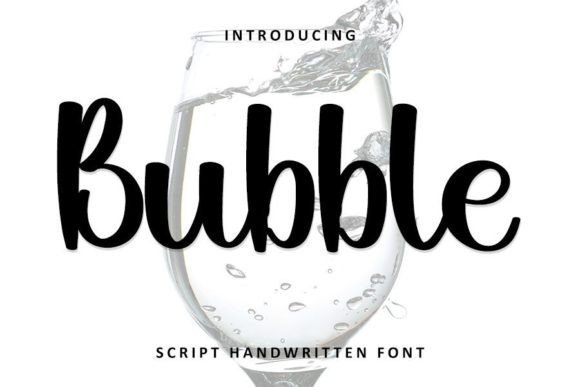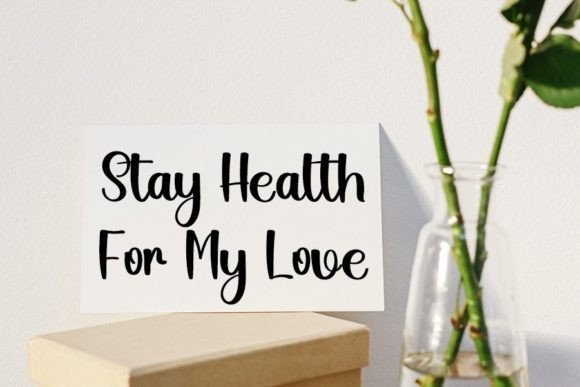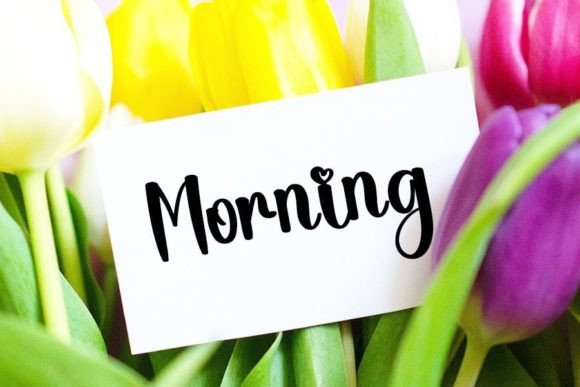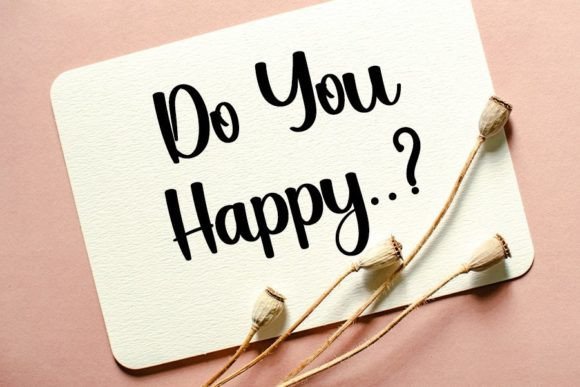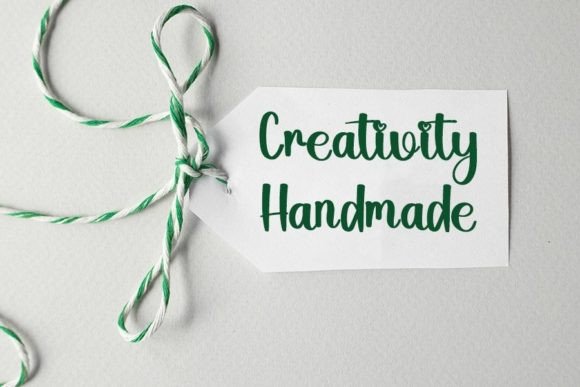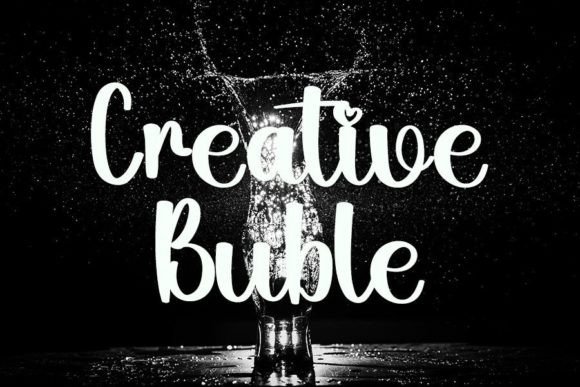
Bubble Font
“Bubble” is a font that radiates elegance and beauty with its neat and handwritten style. It is characterized by an elegant touch that adds sophistication to any design project, making it a perfect choice for a wide range of creative endeavors. With its distinct and timeless style, “Bubble” stands out, making it an ideal font for those who appreciate a blend of sophistication and individuality.
The meticulously crafted characters of “Bubble” convey a sense of refinement and grace. Its elegant touch adds sophistication, making it suitable for projects that require a touch of class and style. Whether you’re designing wedding invitations, branding materials, social media graphics, or any other project, “Bubble” enhances the visual appeal, making your designs truly spectacular.
The unique and timeless nature of “Bubble” gives your designs an air of originality and charm. Its handwritten elegance infuses a personal touch, making your creations feel warm and inviting. The font’s versatility allows it to seamlessly adapt to various design styles, ensuring it complements different themes and aesthetics effortlessly.
Incorporating “Bubble” into your projects empowers you to create designs that endure the test of time. Its elegant and beautiful handwritten style adds sophistication, making your creations visually striking. Whether you’re working on elegant invitations, luxurious branding, or refined promotional materials, “Bubble” elevates the overall aesthetic, making your designs truly exceptional.
Falling in love with the unique and timeless style of “Bubble” enables you to craft spectacular designs that captivate your audience. Its elegant touch and distinctive characters add sophistication to your favorite projects, transforming them into remarkable and unforgettable creations. Embrace the font’s elegance and let it breathe life into your designs, leaving a lasting impression on anyone who sees them.